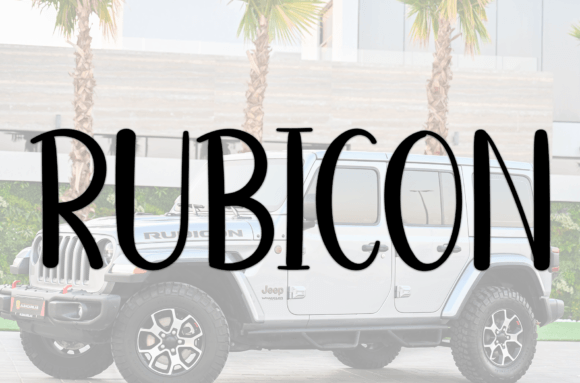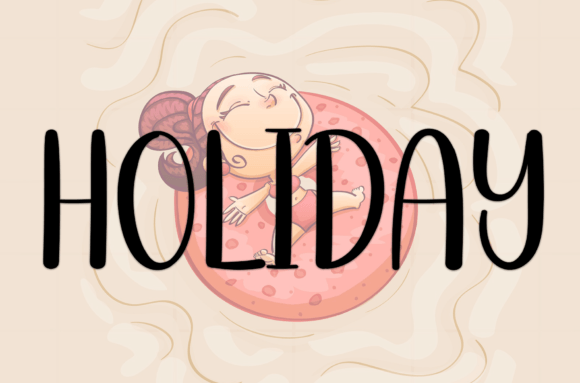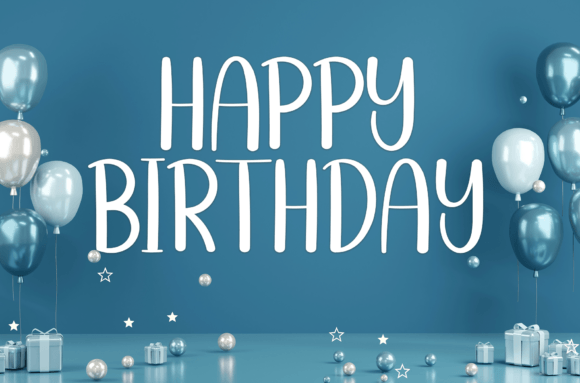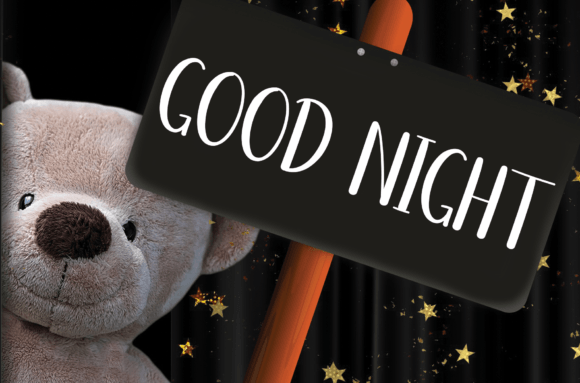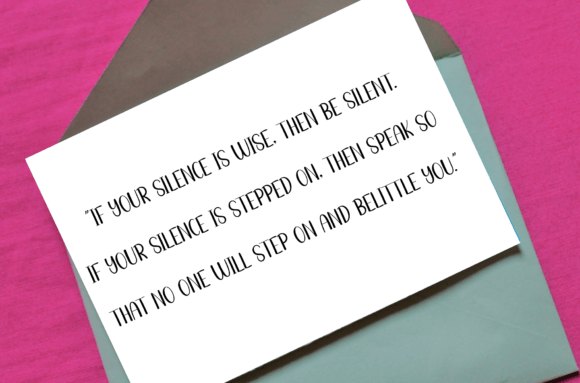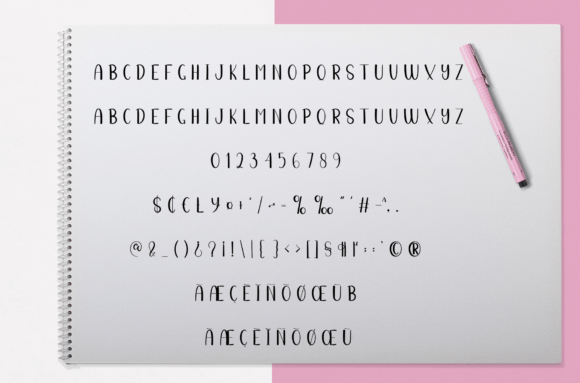
Get Ready for a Font that’s the Ultimate Holiday Companion
Who hasn’t felt the magic of being home alone during the holiday season? The coziness, the freedom, and the endless possibilities for creative expression. As designers, we know that sometimes it’s the little things that spark our imagination, and for us, it’s often the fonts that bring our ideas to life.
That’s where the Home Alone Font comes in – a sweet and friendly handwritten font that’s perfect for adding a touch of whimsy to your designs. Whether you’re crafting wedding invitations, creating cards for a special occasion, or just want to add some fun to your social media posts, this font is sure to bring a smile to your face and your audience’s.
As designers, we know that having the right tools can make all the difference in bringing our vision to life. The Home Alone Font is a valuable addition to any design library, offering a unique and playful touch that’s sure to elevate your work and make it stand out from the crowd.
Key Features of Home Alone Font
- Font Family: Home Alone is a custom, sans-serif font designed specifically for the movie Home Alone (1990)
- Unique Characteristics: The font features a playful, childlike feel with rounded edges and a friendly, approachable tone
Home Alone Font Review
The Home Alone Font is a unique, hand-drawn font inspired by the iconic movie. At first glance, it’s clear that this font is designed for those who want to add a touch of nostalgia and whimsy to their designs. Here’s what works well:
- ✨ The font’s imperfections and irregularities give it a charming, handmade feel.
- ✨ The letterforms are bold and expressive, making it perfect for titles and headings.
- ✨ The font’s character set is comprehensive, with a wide range of punctuation and special characters.
- ⚠️ The font’s irregularities can make it difficult to read at small sizes or in certain contexts.
- ⚠️ The font’s bold style can be overwhelming if used excessively.
- ⚠️ The font’s character set, while comprehensive, may not include some special characters or language support.
Overall, I think the Home Alone Font is a great choice for designers who want to add a touch of nostalgia and whimsy to their designs. However, it’s essential to use it judiciously and consider the context in which it will be used. With the right application, this font can be a real showstopper.
Home Alone Font Practical Application Guide
The Home Alone font is ideal for creating retro-themed designs, holiday decorations, and festive invitations. It’s also great for adding a playful touch to children’s party materials and family events.
To get the most out of the Home Alone font, use it in combination with other retro-themed elements, such as vintage patterns and distressed textures. Experiment with different font sizes and colors to achieve a unique look that matches your design style.
Alternatives to Home Alone Font for Designers
Great Vibes is a beautiful, elegant script font perfect for adding a touch of sophistication to your designs. It’s ideal for invitations, wedding designs, and other special occasion materials. Compared to Home Alone Font, Great Vibes has a more refined and luxurious feel, making it suitable for high-end branding and advertising.
Pacifico is a stylish, modern script font that works well for creative and artistic projects. It’s great for branding, advertising, and editorial designs. Unlike Home Alone Font, Pacifico has a more relaxed and casual feel, making it perfect for digital media and social media platforms.